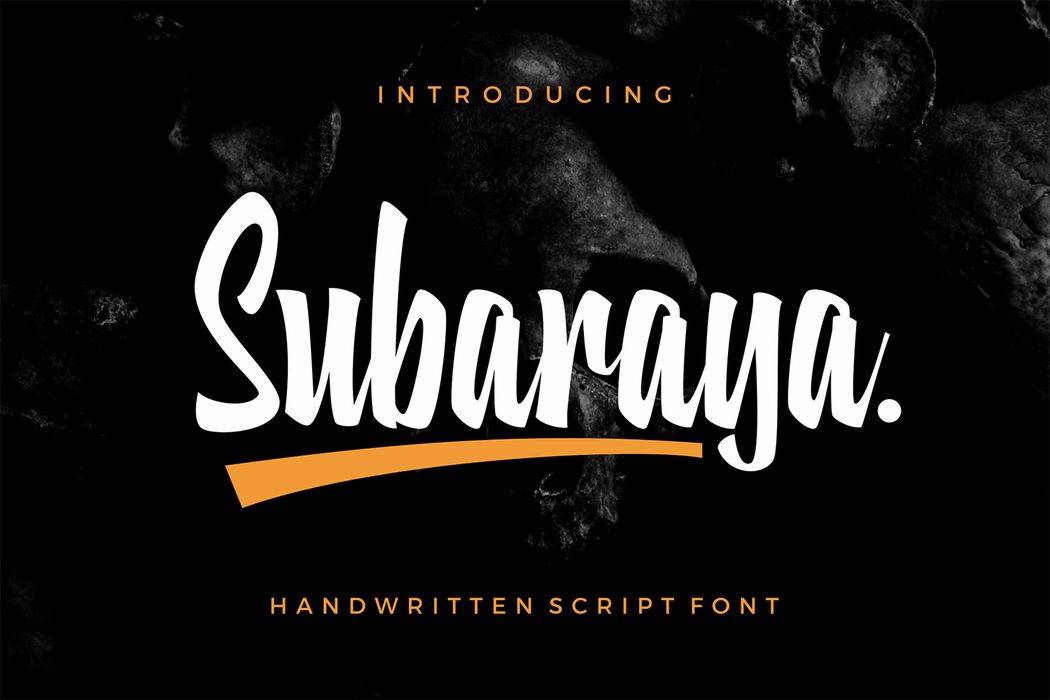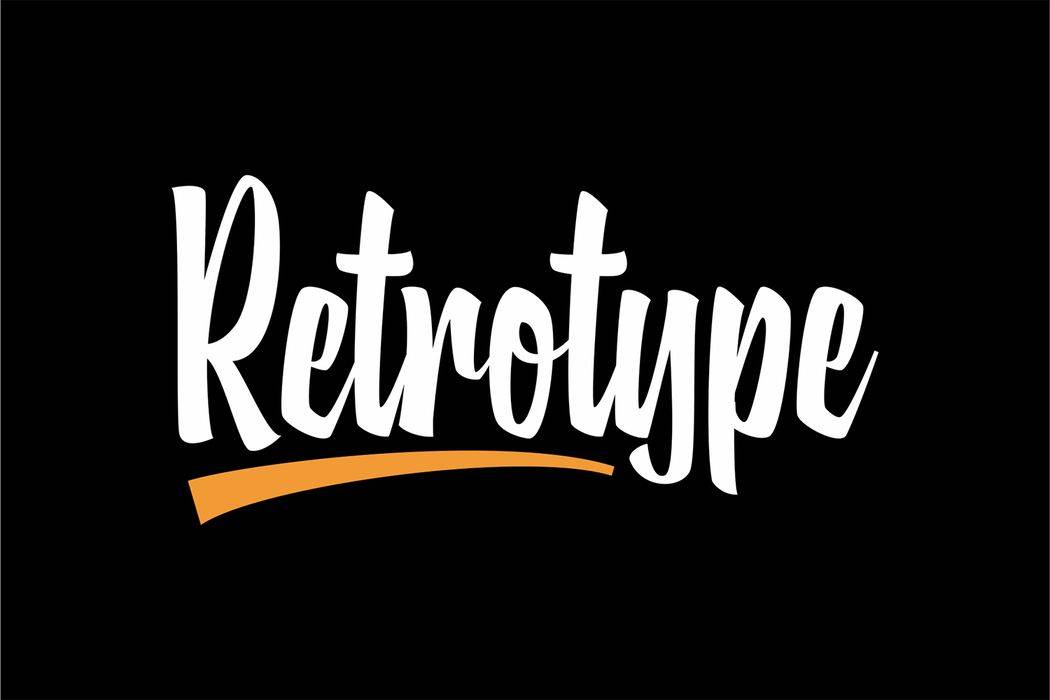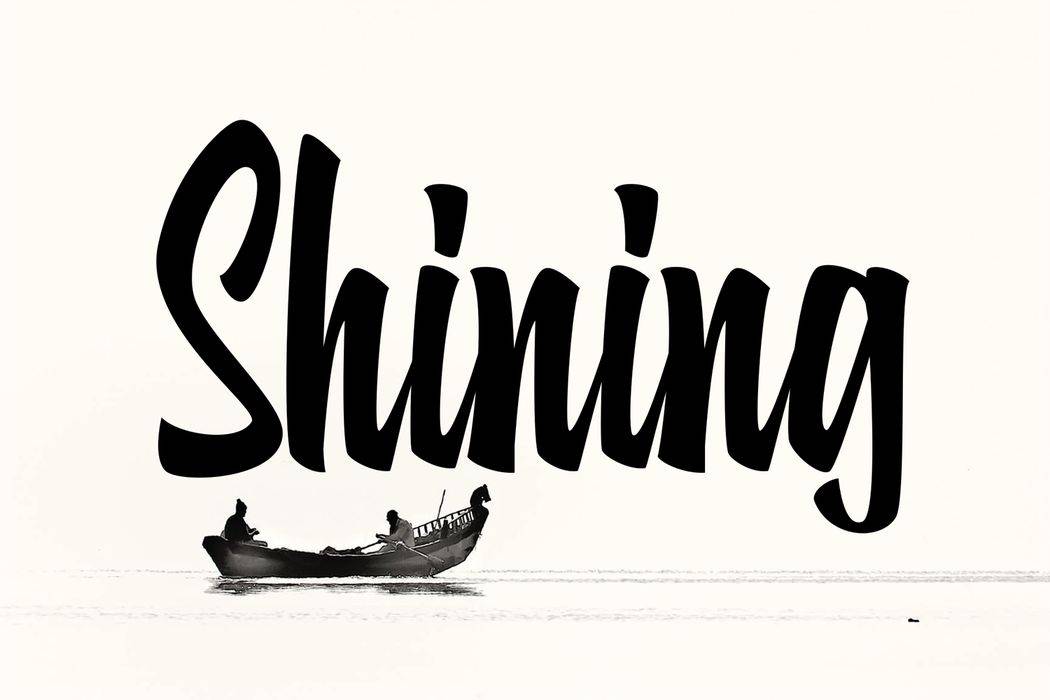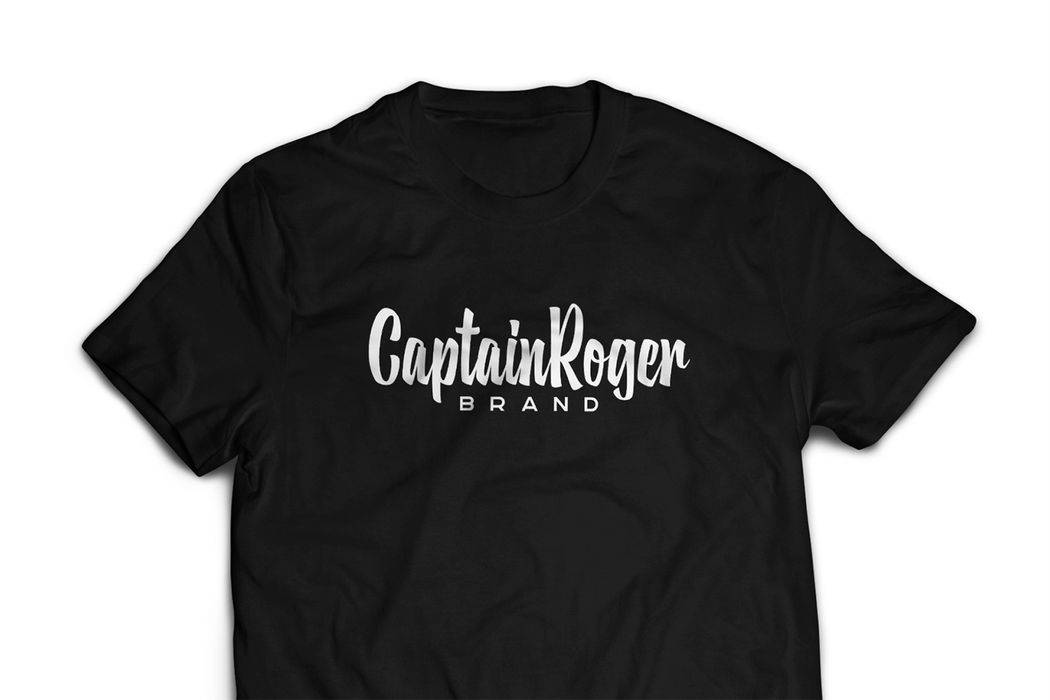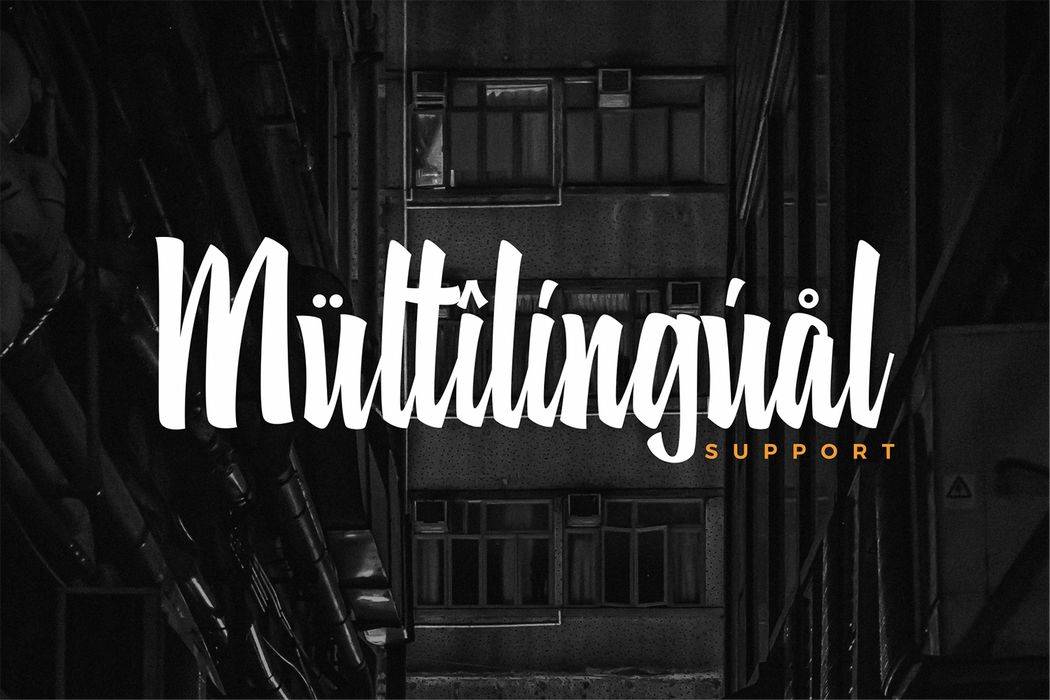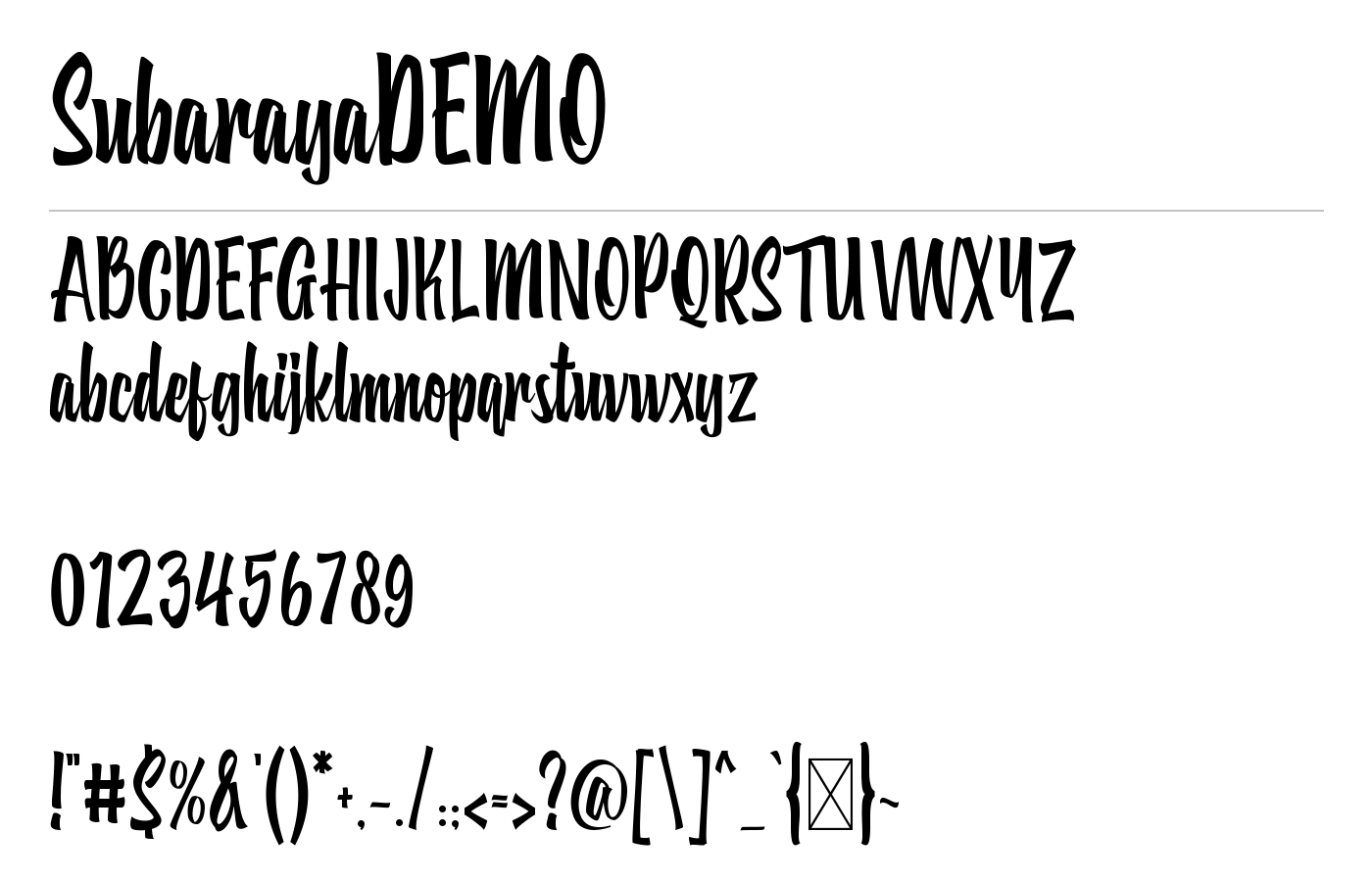
Subaraya Script is a playful and energetic script font with a hand-drawn feel, featuring tall, narrow letterforms and a lively, casual style. Its slightly condensed width and consistent stroke weight make it ideal for adding a fun, informal touch to logos, posters, and creative projects where personality and approachability are key.
Subaraya Script
About Subaraya Script
| Font family | Subaraya Script |
| Designer | Holis Mjd |